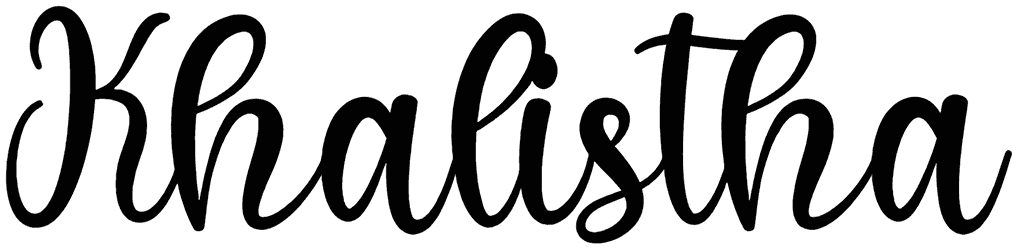
Khalistha Font
Try out the curvy script font Khalistha if you’re going for a more feminine look and feel in your work. Because of its flowing styles, this calligraphy font may give off a more relaxed and lovely vibe, despite the lack of numerals and unreadable style.